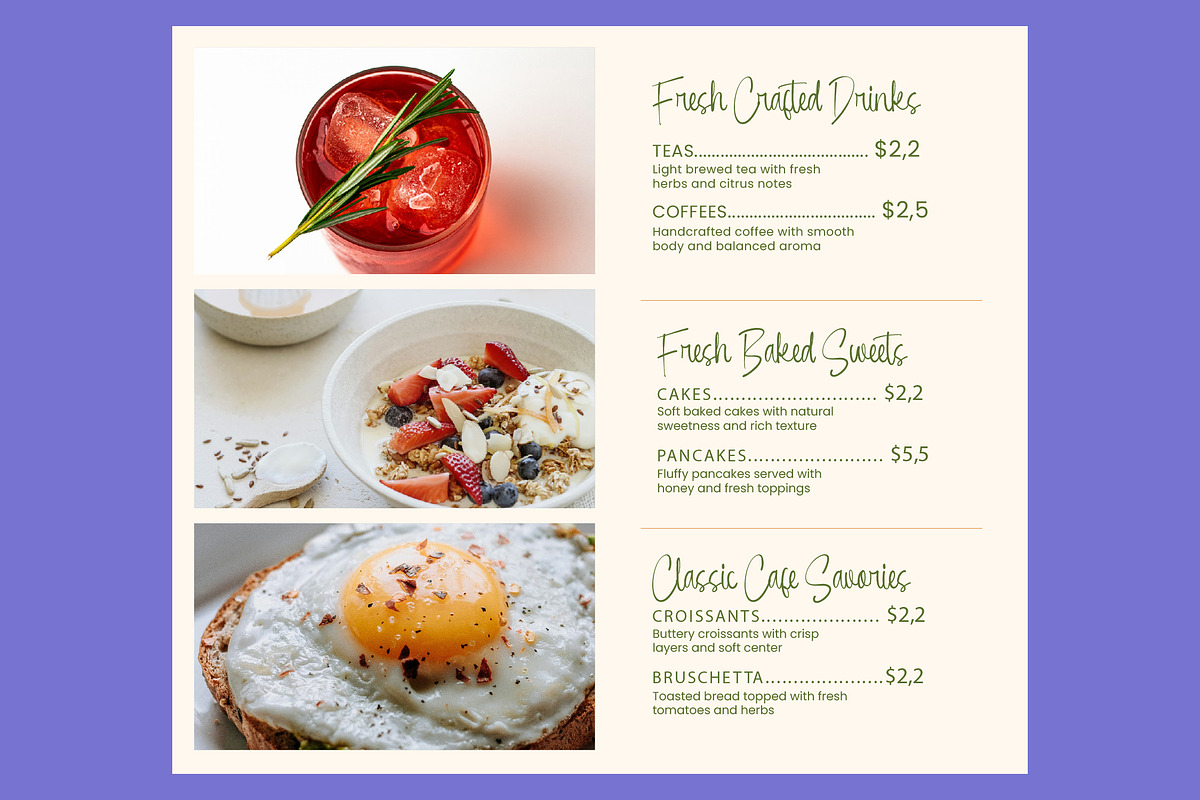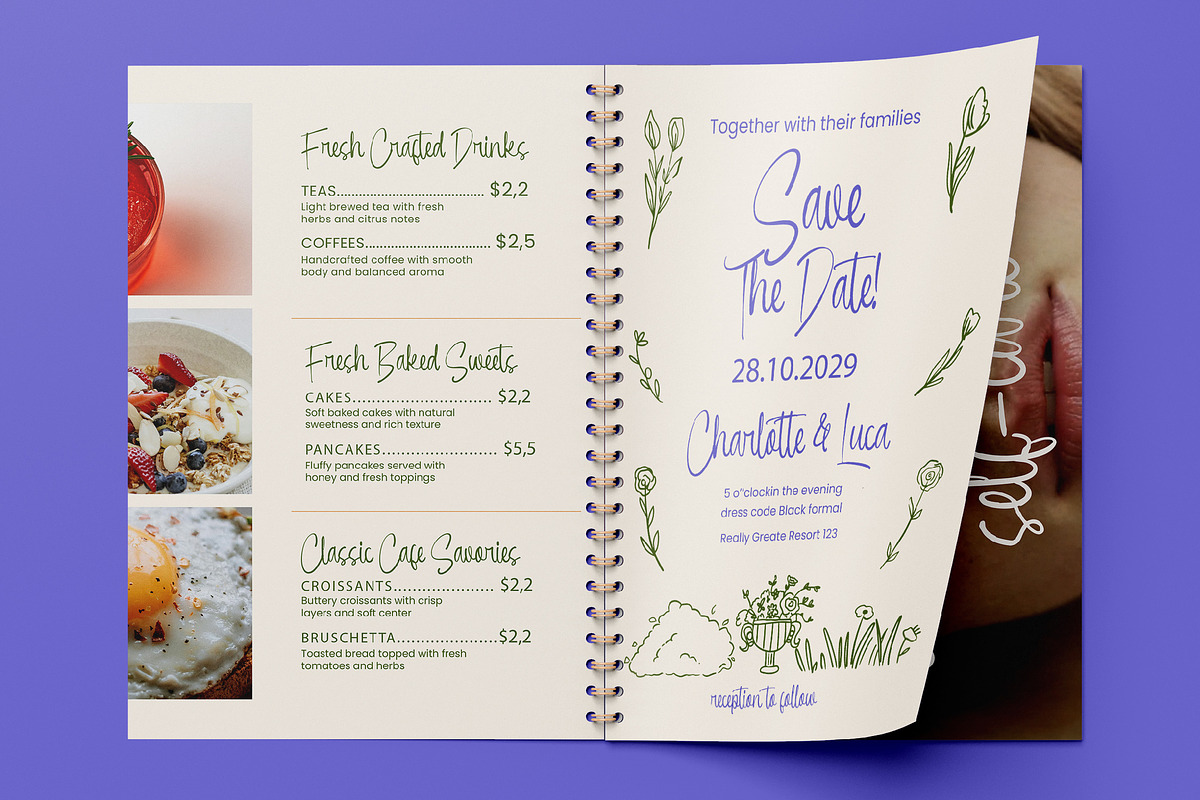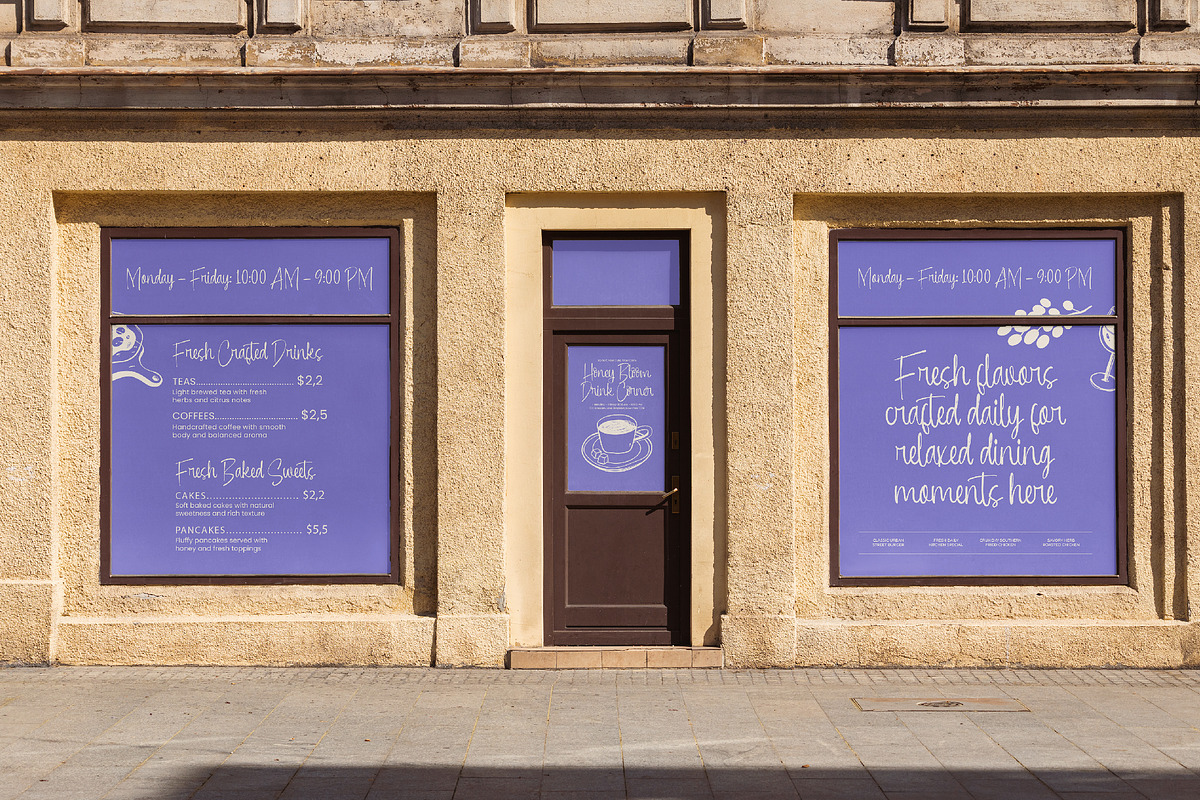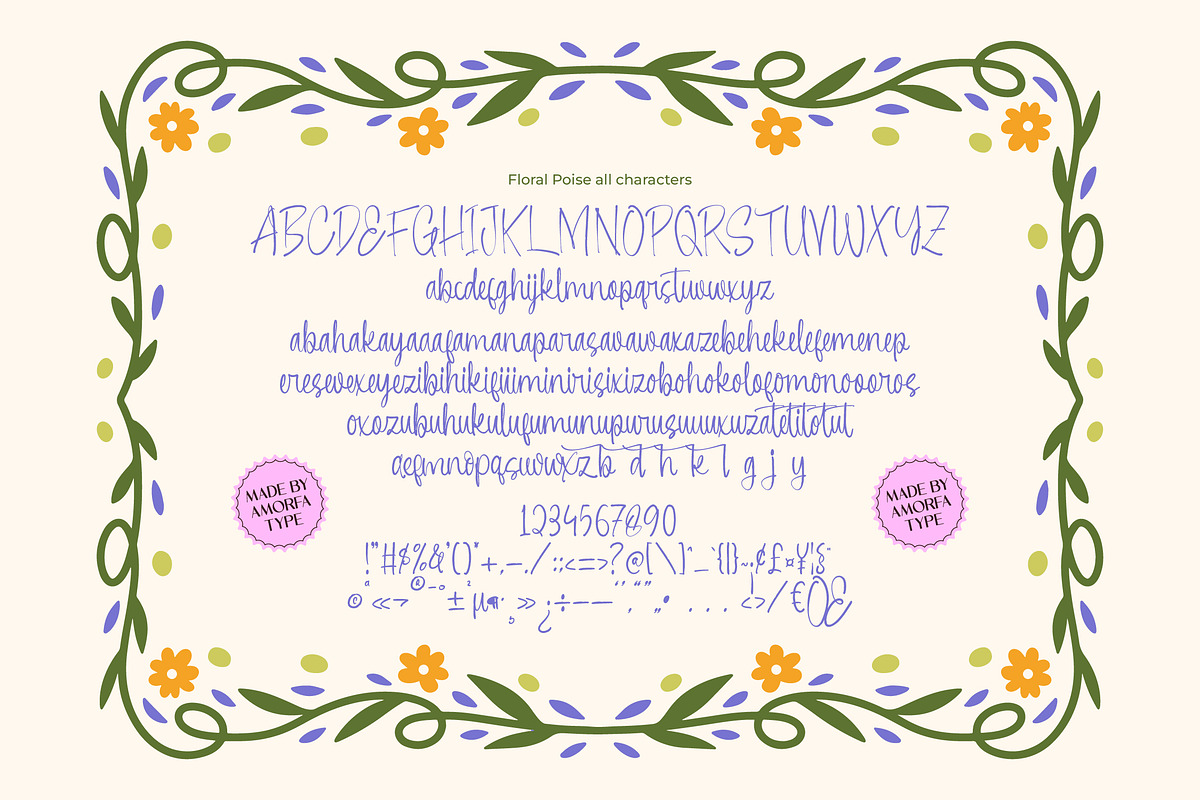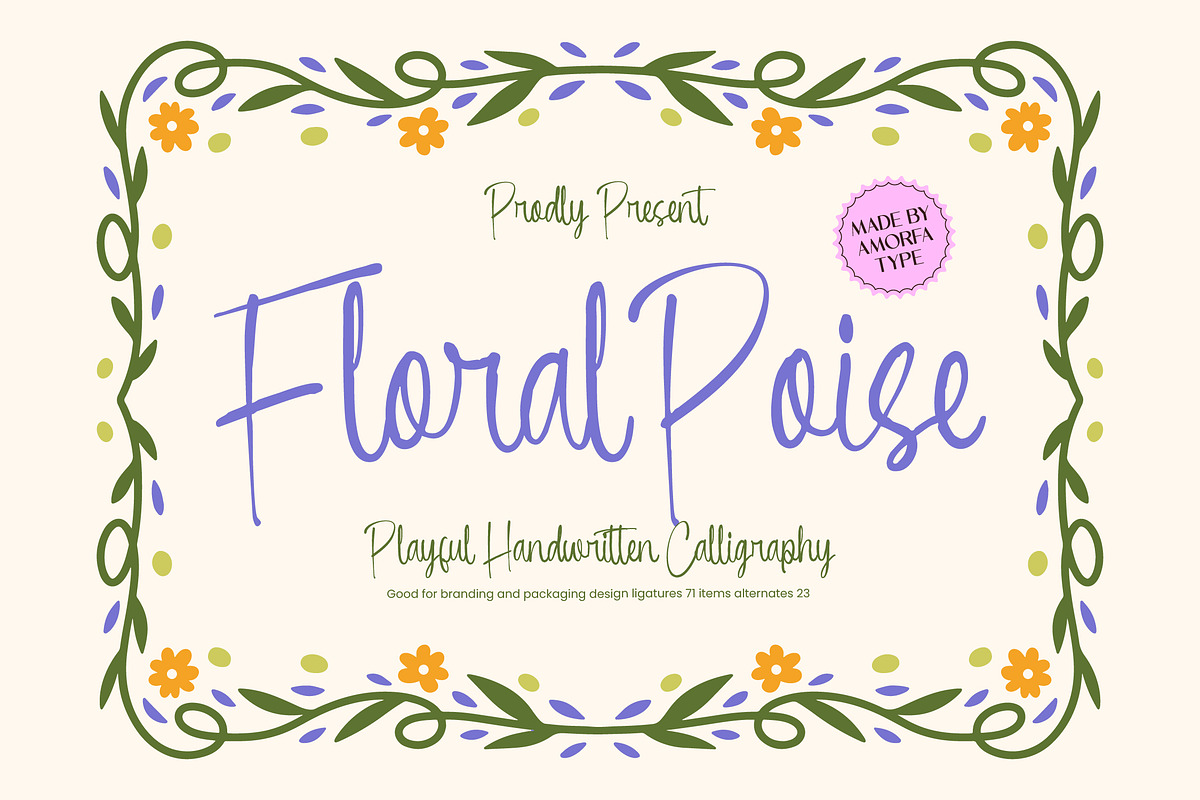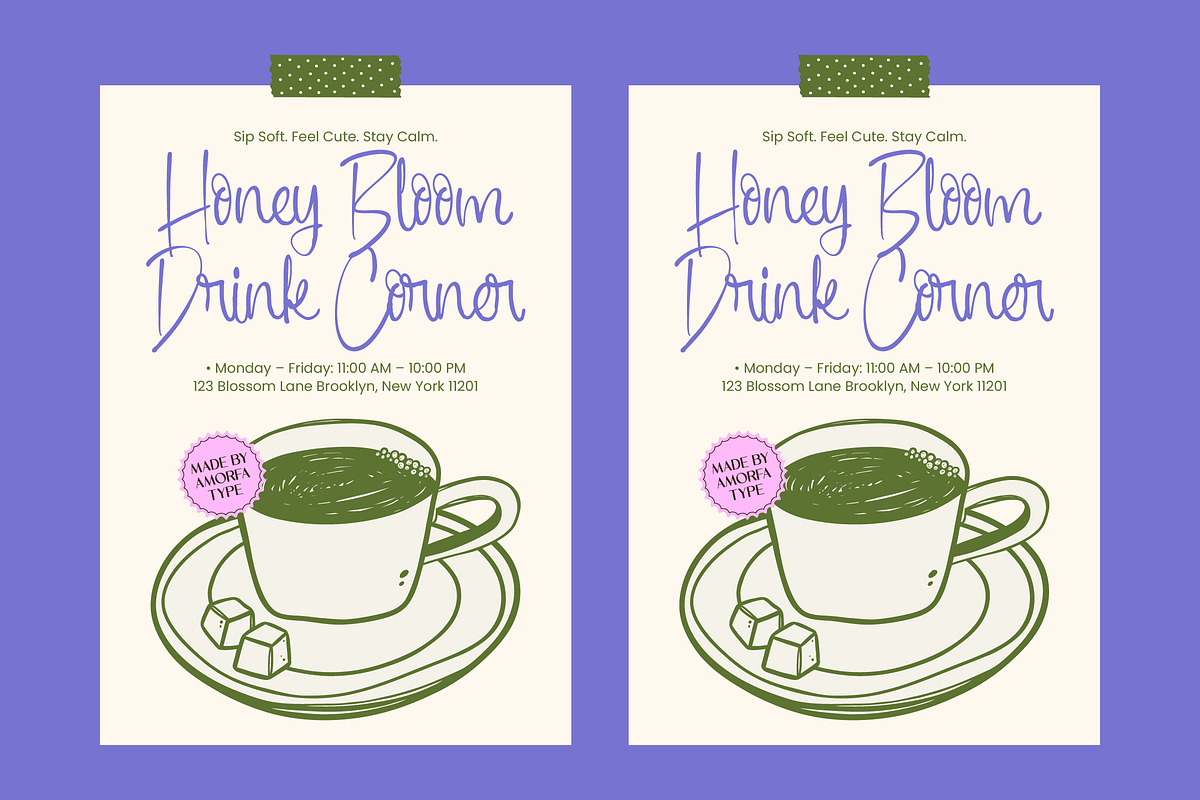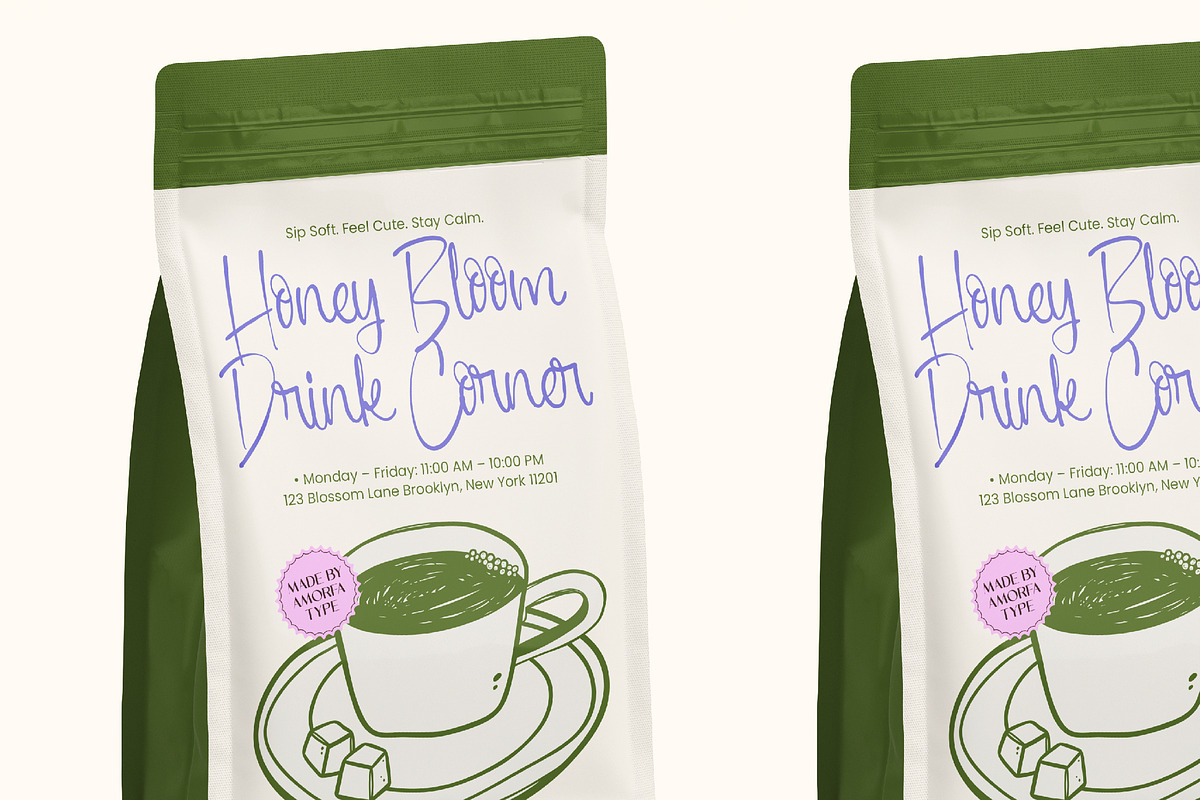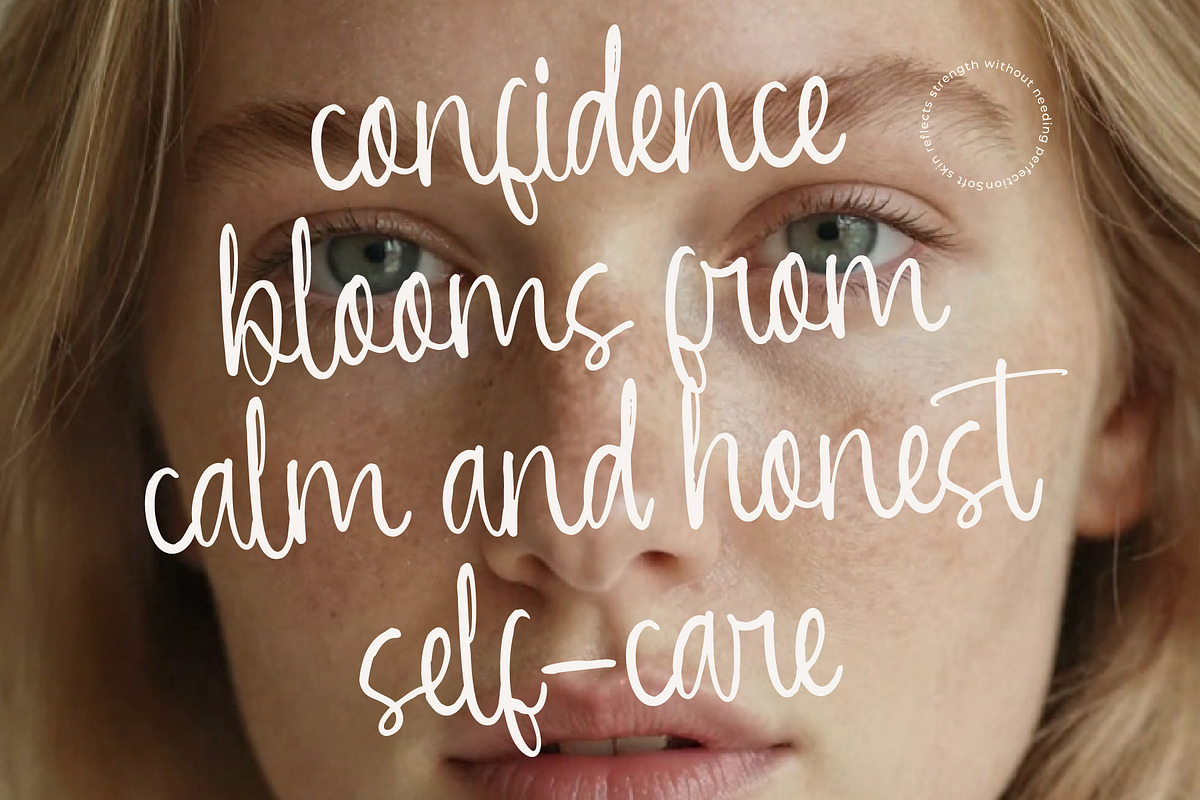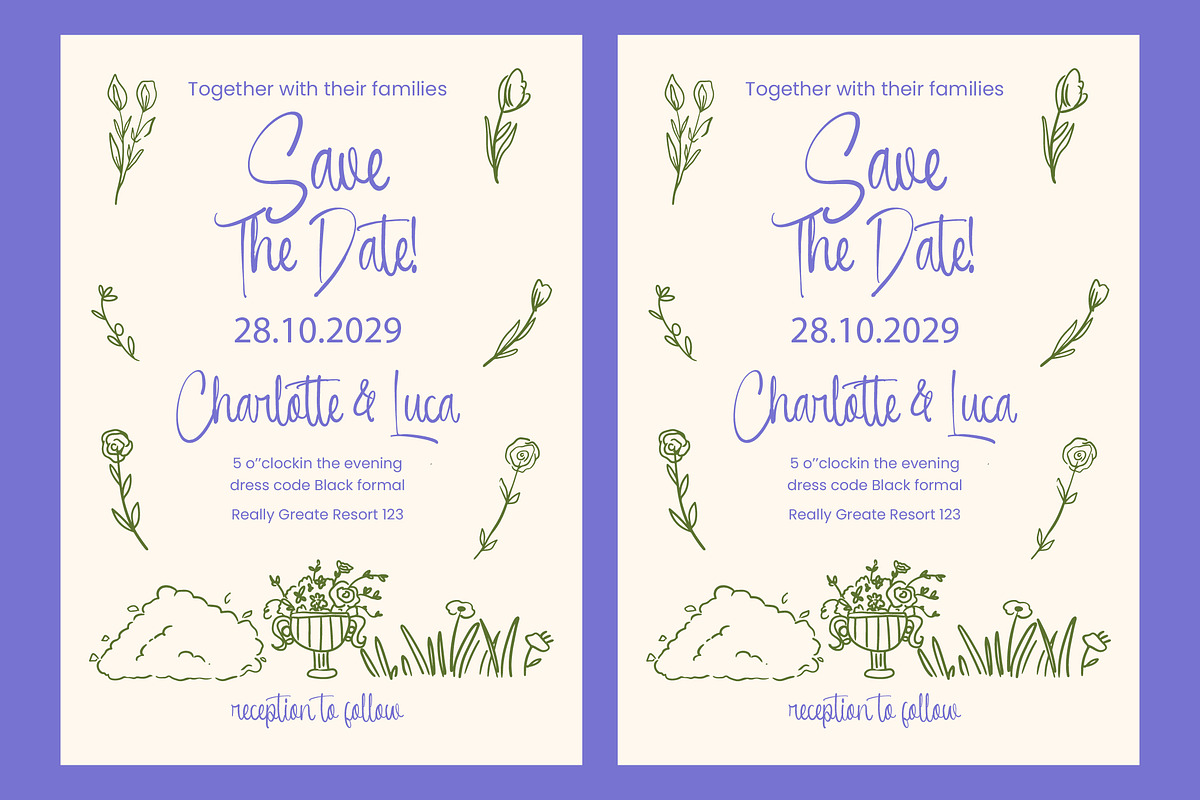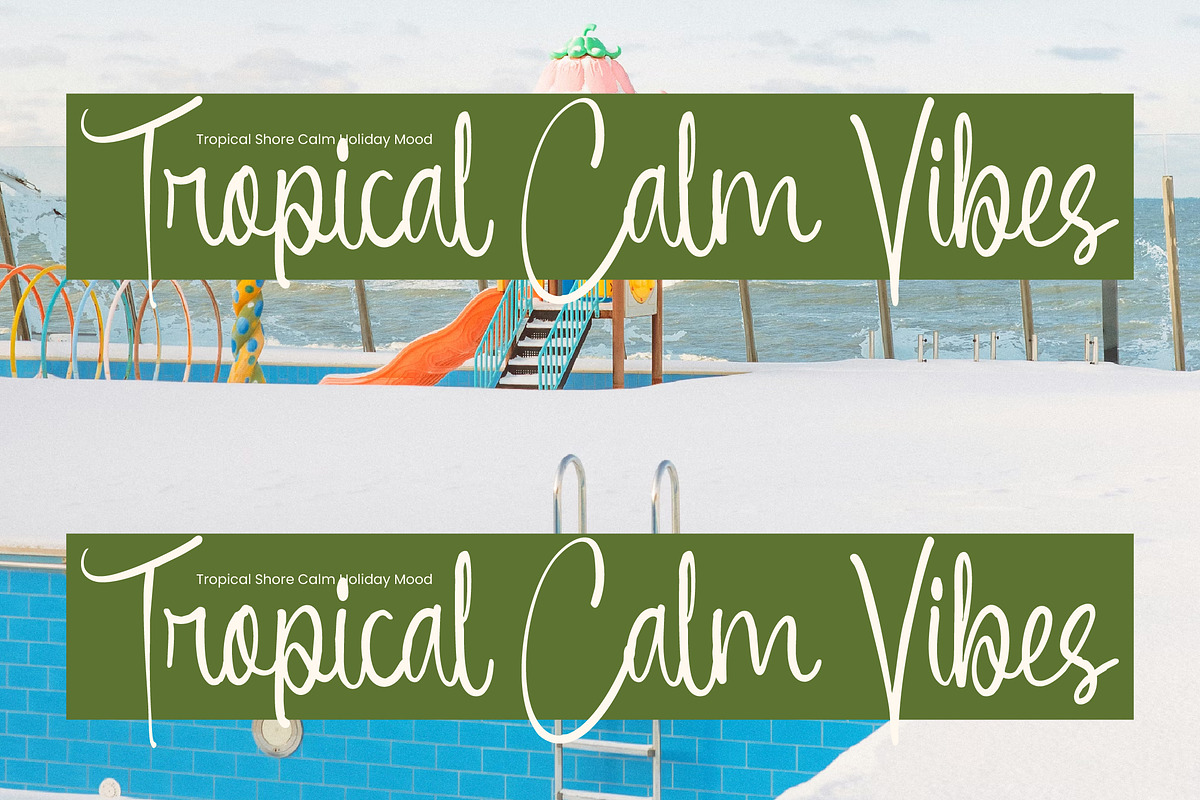
Floral Poise Charming Calligraphy
About the Product Floral Poise is an enchanting, playful handwritten calligraphy font that blends organic elegance with a spirited, whimsical touch. Designed to capture the fluid motion of natural handwriting, it brings a sense of authentic artistry and personal warmth to every stroke.
With its graceful curves and expressive character, Floral Poise is the perfect choice for projects that require a feminine, high-end, and sophisticated aesthetic. Whether you are crafting a luxury brand identity, delicate packaging, or heartfelt stationery, this font adds a rhythmic beauty that feels both curated and effortless.
Playful Calligraphy Aesthetic – A harmonious mix of elegant script and lively, handwritten charm.
High-Impact for Branding – Specifically tailored for logos, social media quotes, editorial layouts, and premium packaging.
Extensive Typographic Flourishes – Packed with ligatures and alternates to recreate the natural flow of custom ink lettering.
Seamless Readability – Optimized to maintain its delicate details and clarity across both print and digital platforms.
Extensive Ligatures: Includes 71 specialized ligatures to create seamless, natural connections between letters.
Creative Alternates: Features 23 decorative alternates for customized typographic layouts.
Complete Character Set: Uppercase, lowercase, numerals, punctuation, and symbols.
Floral Poise is made for designers who want a handwritten font with soul—elegant when needed, playful by nature, and always poised to make your design stand out.